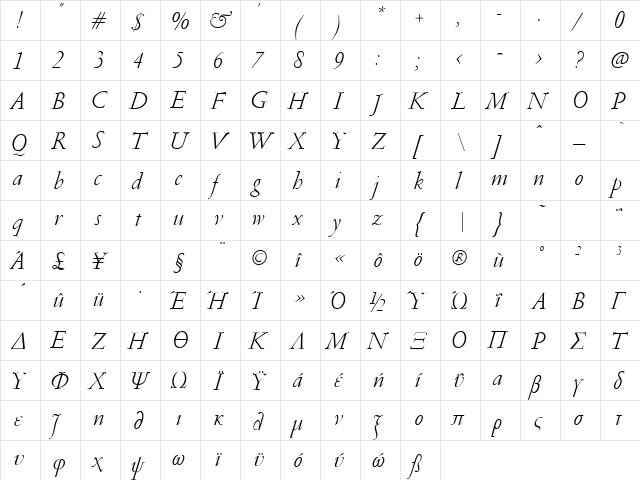
PFGaramond Classic Italic Regular
Design Context for PFGaramond Classic Italic Typeface
PFGaramond Classic Italic wears its vintage influences proudly, with letterforms that recall mid-century signage, classic packaging, and nostalgia-driven design. Its italic angle brings a sense of urgency and motion to the letterforms.
Font Pairing: Combine PFGaramond Classic Italic with a simple slab or neutral sans — period-accurate companions reinforce the vintage feel without competing for attention.
Pro Tip: Lean into PFGaramond Classic Italic's period character by pairing it with aged paper textures, muted colour palettes, and vintage illustration styles.